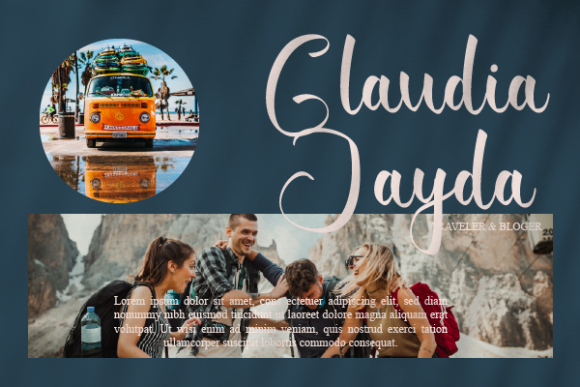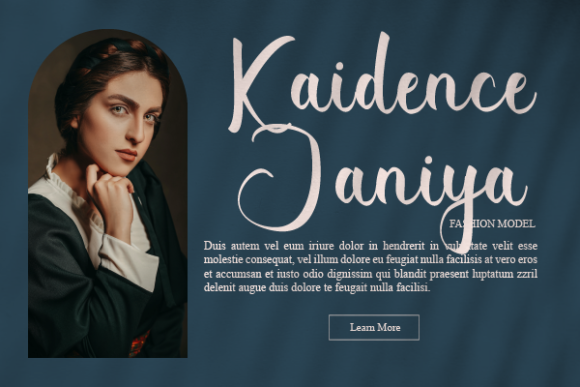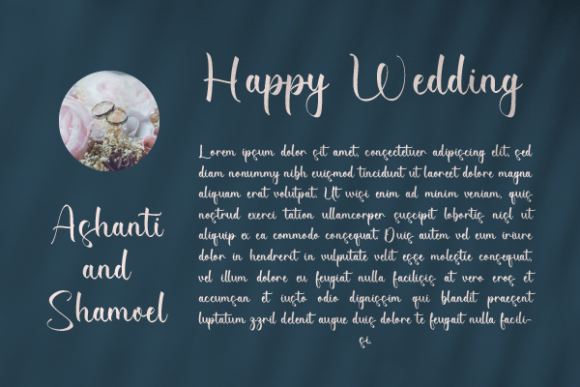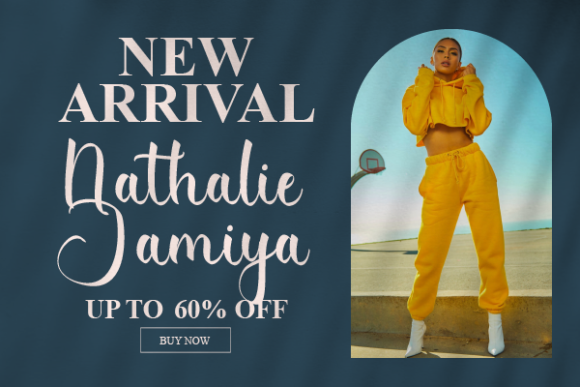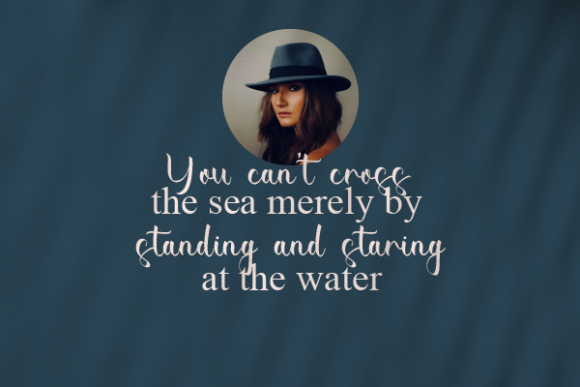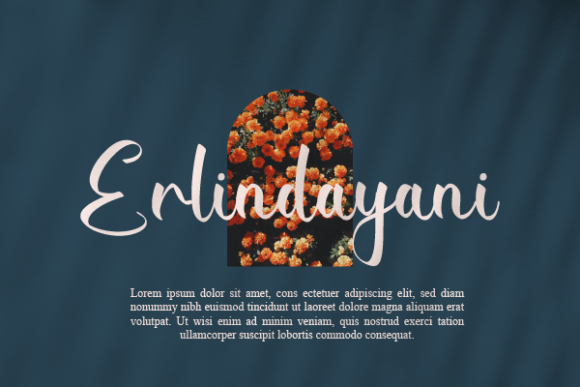
Introduction to Lindsay Jessica Font
As designers, we’ve all been there – staring at a blank canvas, trying to bring a creative idea to life. The perfect font can make all the difference, elevating a design from ordinary to extraordinary. That’s where the Lindsay Jessica Font comes in – a trendy, handwritten font that’s sure to make your work stand out.
With its elegant and curvy lines, the Lindsay Jessica Font is the perfect addition to any creative project. Whether you’re working on product packaging, branding, magazine covers, or social media graphics, this versatile font is sure to impress. And the best part? It’s available for free download, making it a valuable resource for designers on a budget.
As a high-quality design resource, the Lindsay Jessica Font is a game-changer for designers looking to add a touch of sophistication to their work. Its versatility and unique style make it perfect for a wide range of applications, from wedding invitations to product labels. So why settle for a generic font when you can make a statement with the Lindsay Jessica Font?
Key Features of Lindsay Jessica Font
- High-quality, elegant design perfect for creative projects and design resources
- Unique, cursive script design with a feminine touch, ideal for wedding invitations, greeting cards, and other creative projects
Honest Review: Lindsay Jessica Font
As a designer, I’m always on the lookout for high-quality fonts to elevate my creative projects. The Lindsay Jessica Font is a popular choice, and I’ve had the chance to put it to the test. Overall, I’m impressed with its versatility and sleek design.
- ✨ Clean and modern aesthetic that’s perfect for contemporary designs
- ✨ Highly legible even at small font sizes, making it ideal for digital projects
- ⚠️ Limited language support, which may be a concern for designers working on multilingual projects
- ⚠️ No transparent background option, which may limit its use in certain design scenarios
Overall, I think the Lindsay Jessica Font is a solid addition to any designer’s toolkit. While it may have some limitations, its high quality and modern design make it a great choice for a wide range of creative projects. If you’re looking for a reliable font for your next design, the Lindsay Jessica Font is definitely worth considering.
Introduction to Lindsay Jessica Font
The Lindsay Jessica Font is a high-quality, elegant design resource ideal for creative projects. It’s available for free download and features a transparent background, making it versatile for various design applications.
Tips for Getting the Most Out of Lindsay Jessica Font
For optimal results, use Lindsay Jessica Font in combination with other design elements to create a cohesive look. Experiment with different font sizes, colors, and styles to achieve the desired effect.
Common Use Cases for Lindsay Jessica Font
Lindsay Jessica Font is ideal for various creative projects, including wedding invitations, business cards, and social media graphics. Its elegant design makes it perfect for formal events and professional branding.
Alternatives to Lindsay Jessica Font
Great Vibes Font is a beautiful, high-quality script font perfect for creative projects that require a touch of elegance. It’s ideal for wedding invitations, event branding, or any design that needs a sophisticated feel. Great Vibes Font has a more refined look compared to Lindsay Jessica Font, making it suitable for formal events and high-end designs.
Pacifico Font is a stunning, modern script font that’s great for designs that need a relaxed, beachy vibe. It’s perfect for summer campaigns, travel brochures, or any project that requires a carefree feel. Compared to Lindsay Jessica Font, Pacifico Font has a more casual and laid-back look, making it ideal for projects that need a touch of whimsy.
Is the Lindsay Jessica Font suitable for high-quality print projects?
Yes, the Lindsay Jessica Font is designed for high-quality print projects. It features clear and crisp typography, making it ideal for business cards, brochures, and other print materials. However, please ensure that you use the font at the recommended size and resolution to achieve the best results.